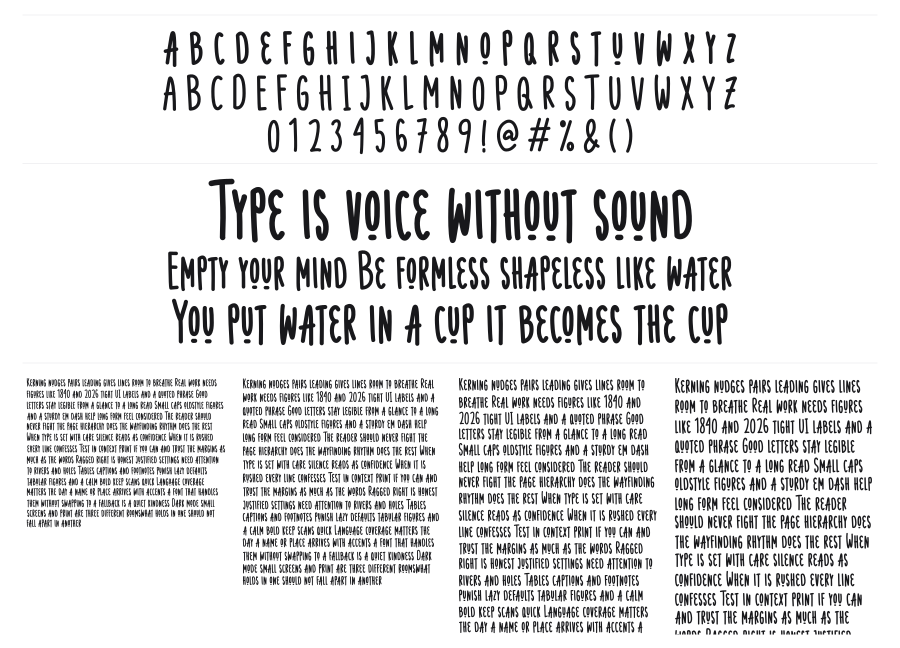
Nonplussed
by Lettertype Studio · Website
Nonplussed is a bold, condensed display font that blends sans-serif structure with hand-drawn character. Each letter carries subtle irregularities in stroke and outline that give it the feel of confident marker lettering rather than a mechanical font. The result is thick, punchy, and full of personality at large sizes.